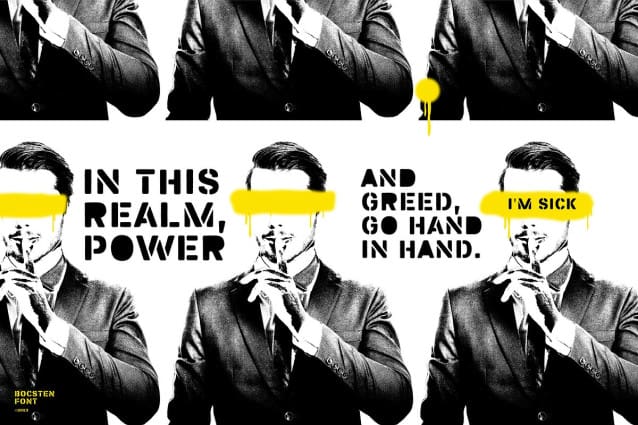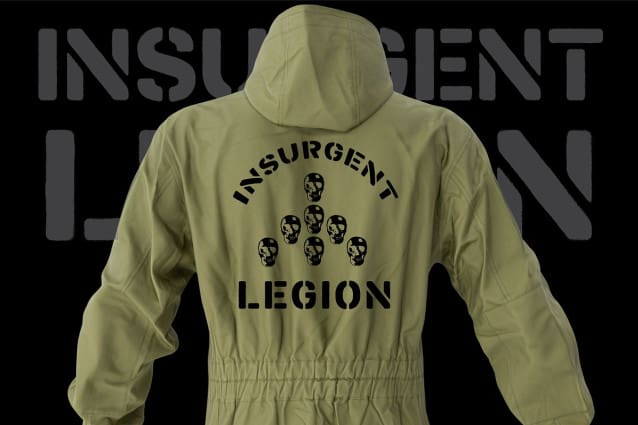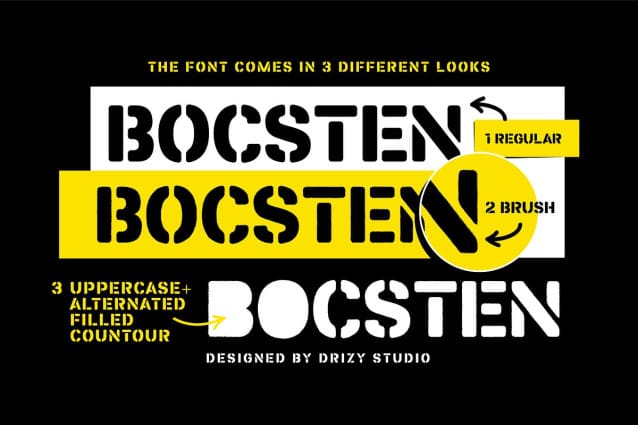
Bocsten Stencil Font
Bocsten Stencil Font is an electrifying and avant-garde splashed stencil font that pushes the boundaries of typographic expression. This typeface marries the rebellious energy of street art with a contemporary design sensibility, resulting in a visually stunning and versatile font.